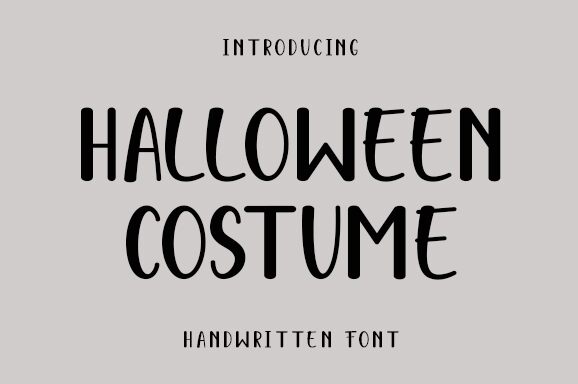
Halloween Costume
Halloween Costume, designed by Wahyu Studio, is a captivating display font that exudes a spooky, whimsical charm. This condensed typeface boasts intricate details and sharp edges, creating a striking visual impact that evokes the spirit of the Halloween season. The angular letterforms and dynamic strokes give the font an energetic, almost haunting quality, making it an ideal choice for a variety of Halloween-themed projects.
This versatile font shines in applications that require a bold, attention-grabbing presence, such as event posters, party invitations, and product packaging. Its condensed width and distinctive style make it a standout choice for headlines, logos, and promotional materials that aim to capture the imagination and set the tone for a spooktacular celebration.